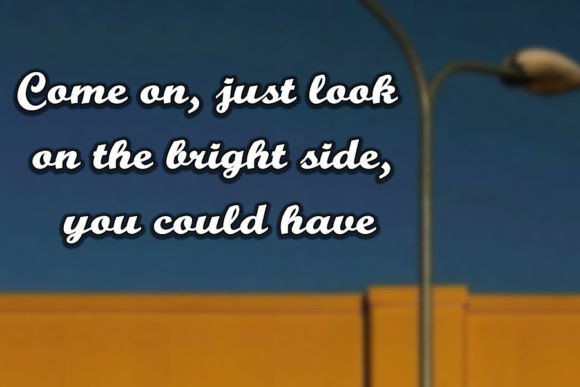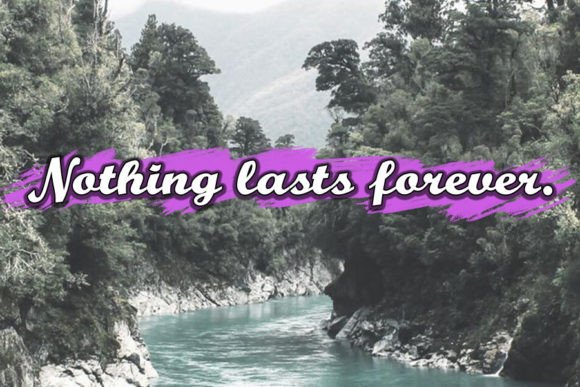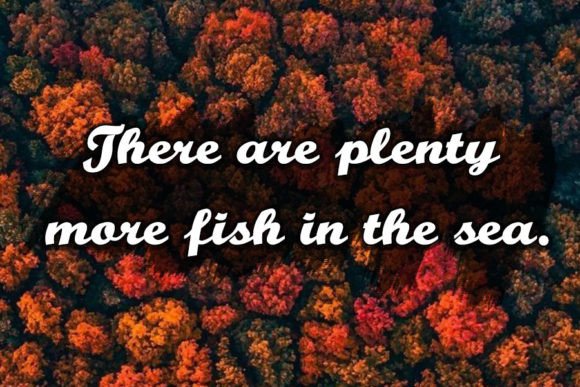
Introducing Augusly Font: The Perfect Handwritten Style for Your Designs
Are you tired of using the same old fonts in your designs? Do you want to add a personal touch to your creations? Look no further than Augusly Font, a beautiful handwritten style font that is sure to bring a cozy and welcoming feel to your designs. In this article, we’ll take a closer look at Augusly Font, its features, and how you can use it to elevate your designs.
What is Augusly Font?
Augusly Font is a unique and charming font that features hand-written style lettering. Its personal touch makes it perfect for designs that require a human and approachable feel. Whether you’re creating invitations, greeting cards, or any other type of design, Augusly Font is sure to make it stand out.
Key Features of Augusly Font
- Handwritten Style: Augusly Font features a beautiful handwritten style that adds a personal touch to your designs.
- Cozy and Welcoming Feel: The font’s unique style creates a cozy and welcoming feel that’s perfect for designs that require a human touch.
- Versatile: Augusly Font is versatile and can be used for a wide range of designs, including invitations, greeting cards, and more.
How to Use Augusly Font in Your Designs
Using Augusly Font in your designs is easy. Here are a few tips to get you started:
- Invitations: Use Augusly Font to create beautiful and personalized invitations for weddings, birthday parties, and other special occasions.
- Greeting Cards: Add a personal touch to your greeting cards with Augusly Font. It’s perfect for creating heartfelt and sincere messages.
- Social Media Graphics: Use Augusly Font to create eye-catching social media graphics that require a personal touch.
- Branding: Augusly Font can also be used for branding purposes, such as creating a unique and memorable logo.
Benefits of Using Augusly Font
There are many benefits to using Augusly Font in your designs. Here are a few:
- Unique and Memorable: Augusly Font is unique and memorable, making it perfect for designs that require a personal touch.
- Versatile: Augusly Font is versatile and can be used for a wide range of designs.
- Time-Saving: Using Augusly Font can save you time and effort in creating designs from scratch.
Tips for Pairing Augusly Font with Other Fonts
Pairing Augusly Font with other fonts can create a unique and visually appealing design. Here are a few tips:
- Pair with a Serif Font: Pair Augusly Font with a serif font, such as Times New Roman or Garamond, to create a classic and elegant look.
- Pair with a Script Font: Pair Augusly Font with a script font, such as Pacifico or Great Vibes, to create a beautiful and elegant look.
- Pair with a Sans-Serif Font: Pair Augusly Font with a sans-serif font, such as Arial or Helvetica, to create a modern and clean look.
Augusly Font is a beautiful and unique font that can add a personal touch to your designs. Its handwritten style and cozy and welcoming feel make it perfect for designs that require a human touch. With its versatility and ease of use, Augusly Font is a great addition to any designer’s toolkit. So why not give it a try and see how it can elevate your designs?